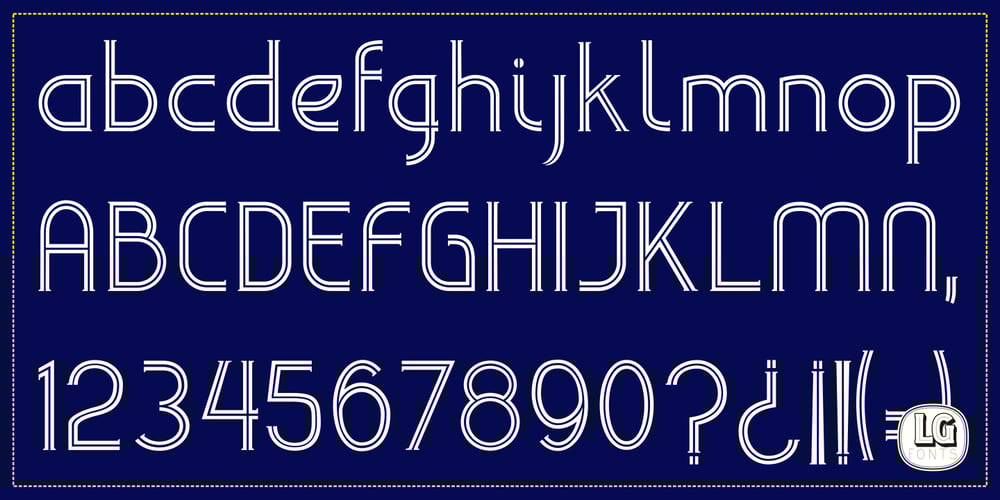
LGF Avadar Font Family was designed by Manuel Lage and published by LGF Fonts. LGF Avadar contains 3 styles and family package options. Avadar is a typeface with a fine serif of straight lines and an inner line that breaks the glyph in two. The type is indicated for use in large or very large sizes, especially for display graphics; the spacing between glyphs makes the readability of the text increase.